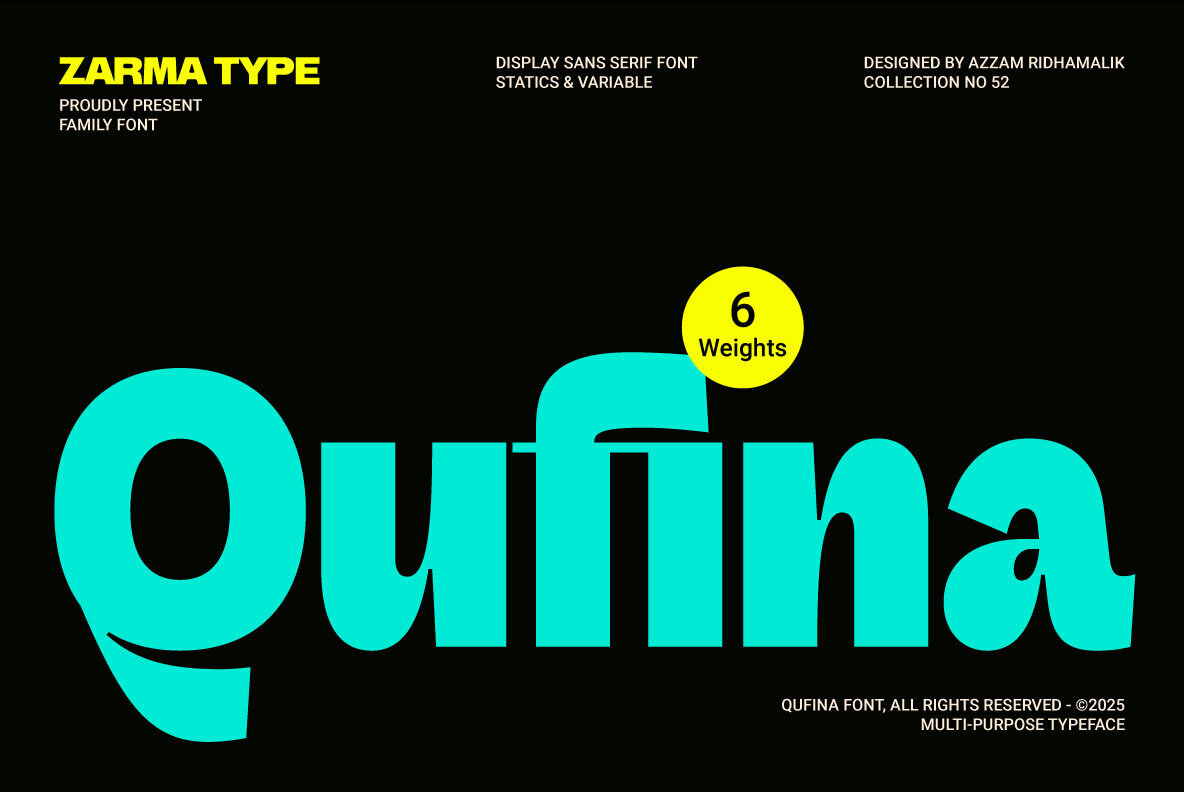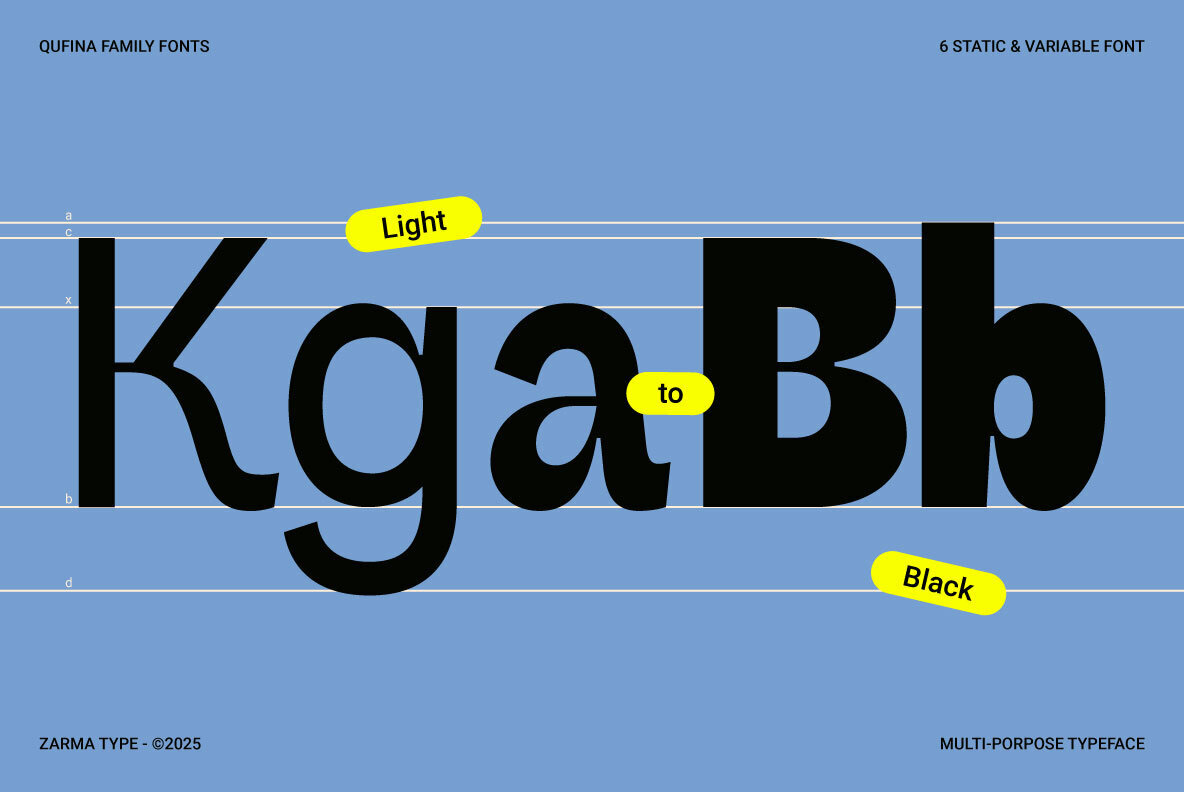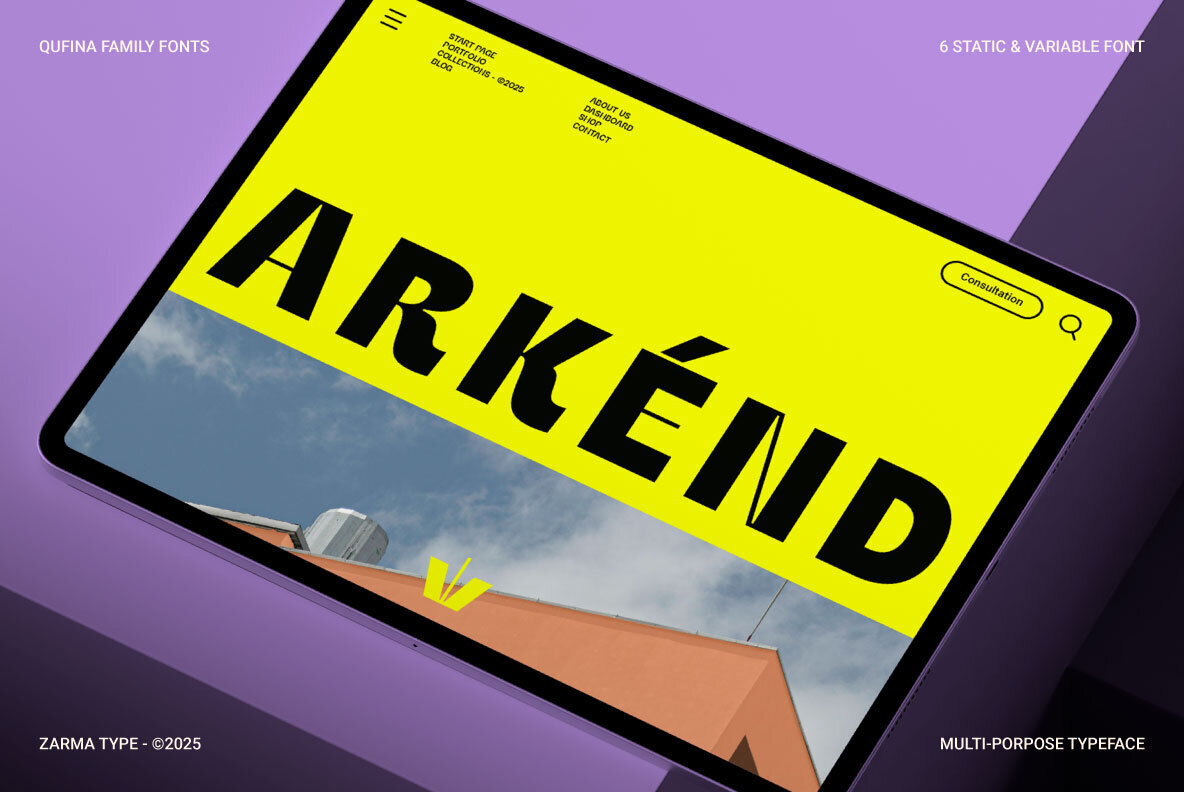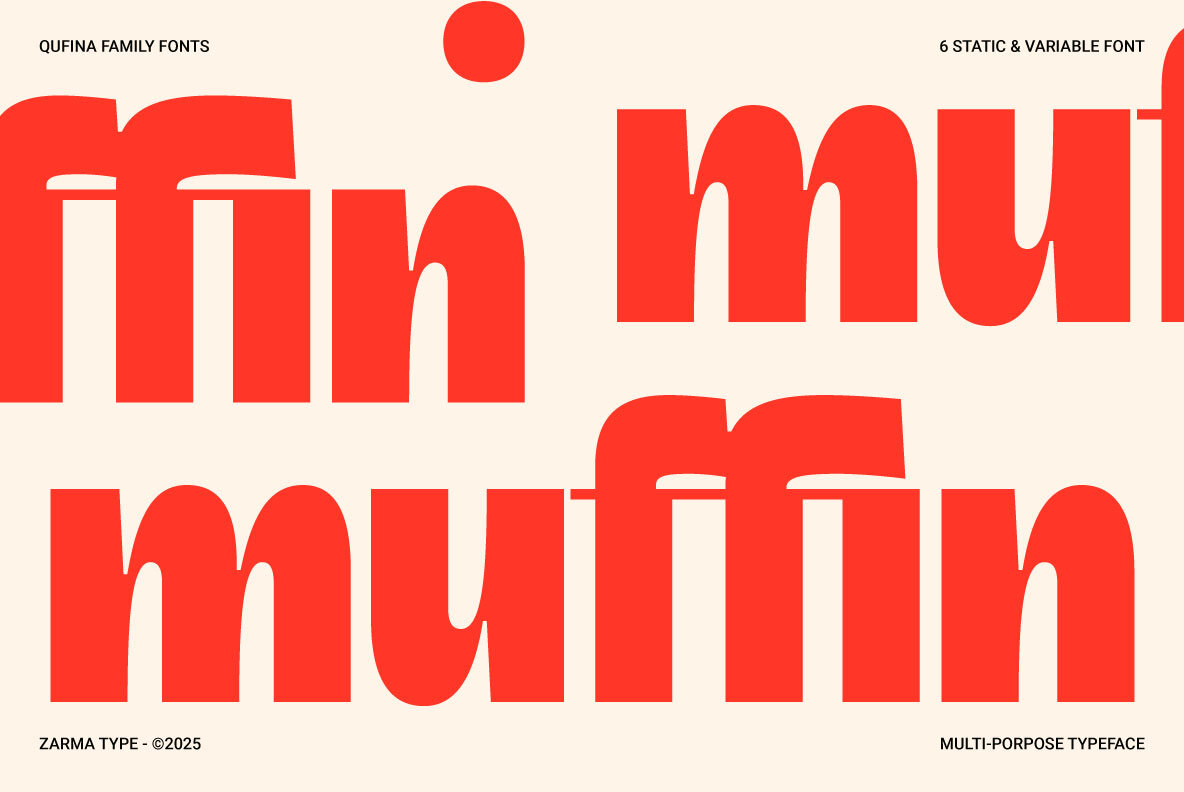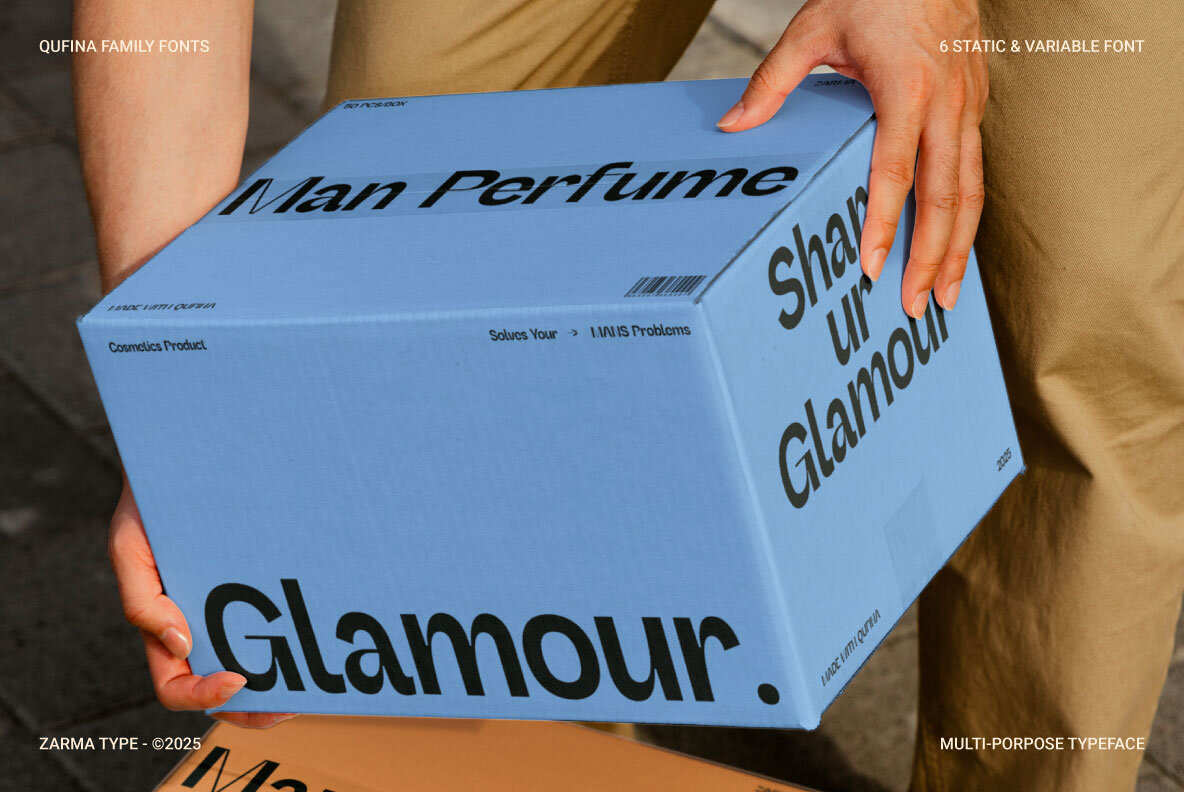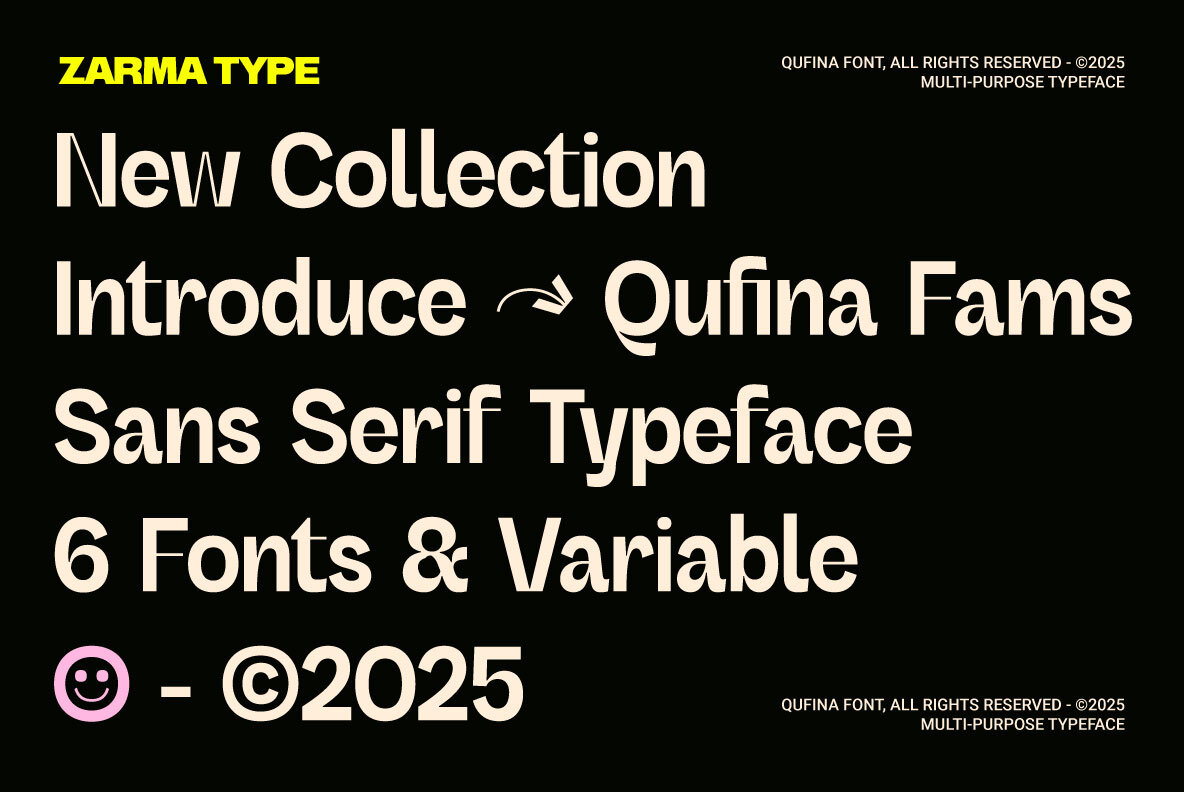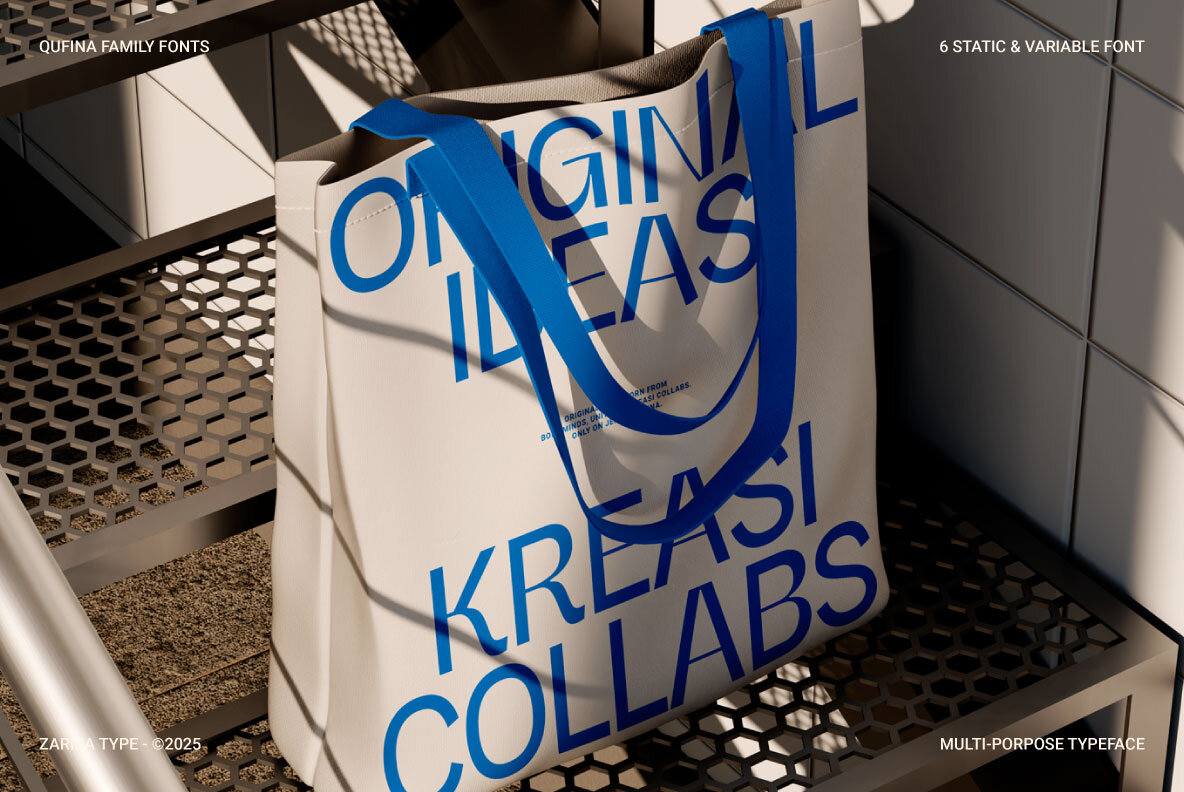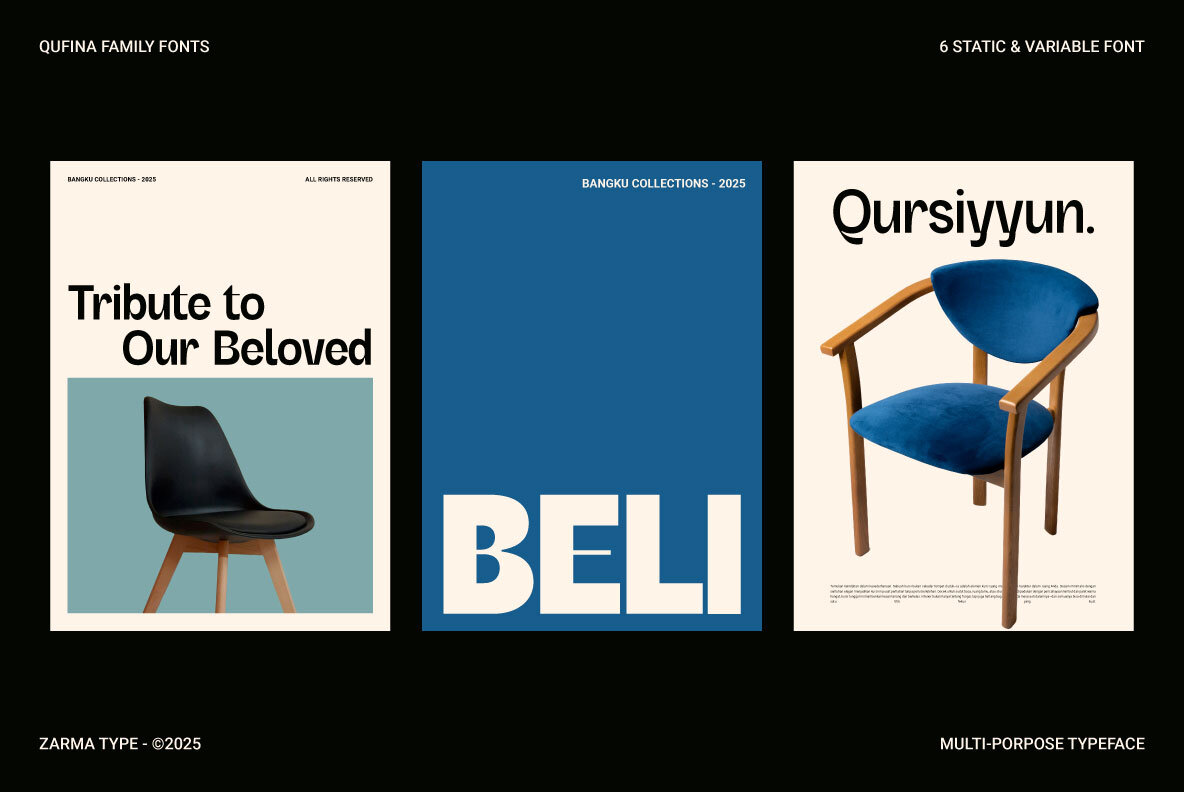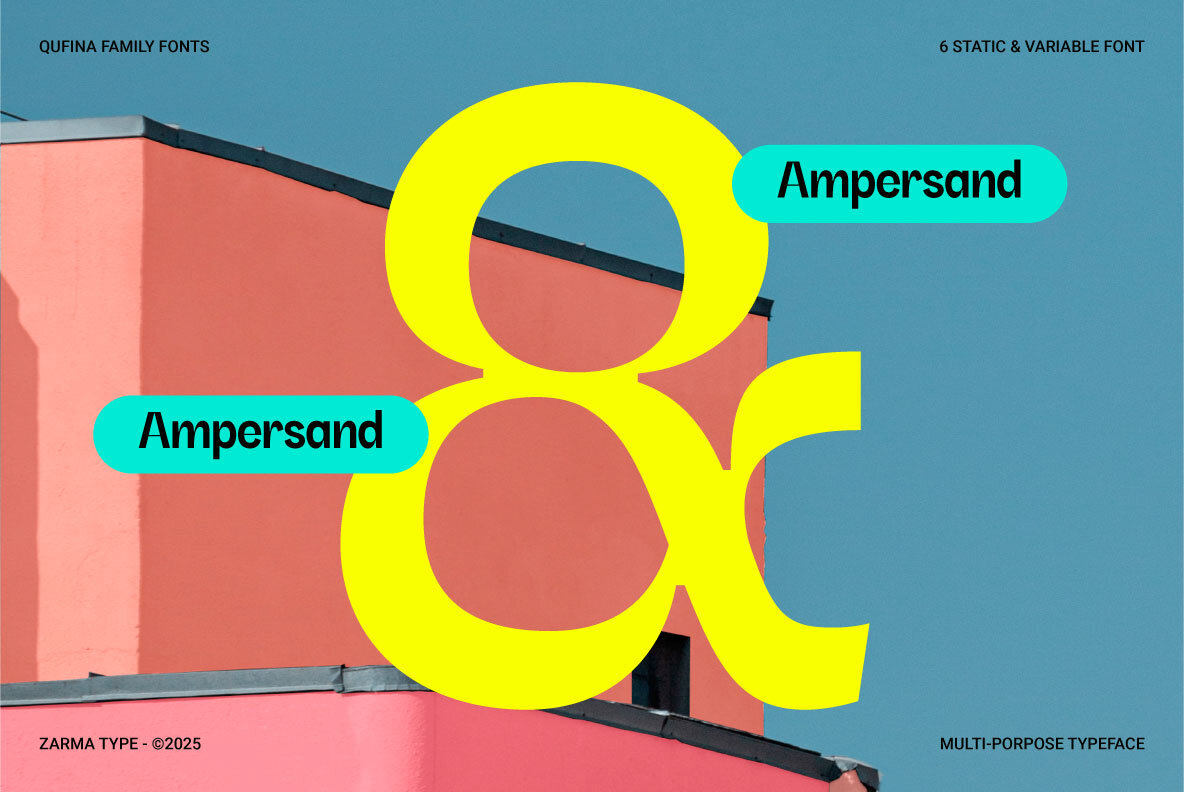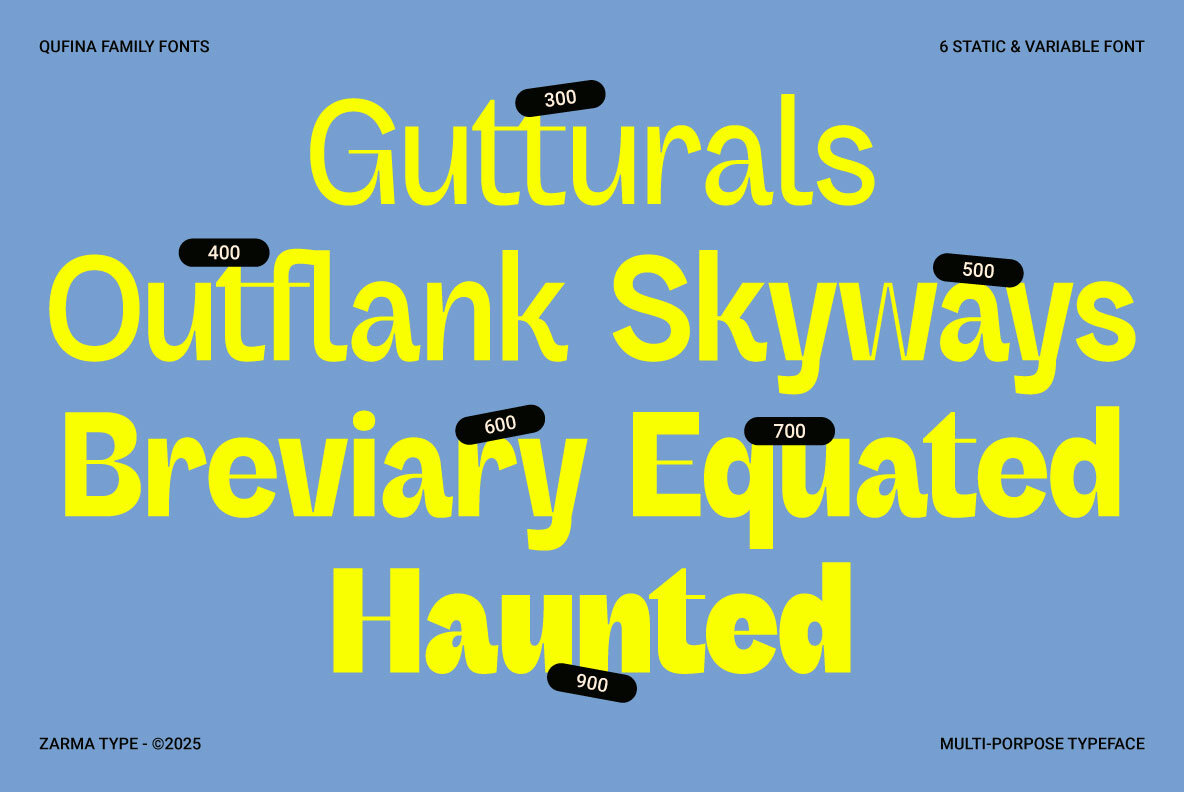
Qufina Font
Qufina offers a compelling blend of style and practicality within a sans serif font family. Featuring six meticulously designed weights and complex variable fonts, Qufina enhances design projects with its fresh geometric curves and unique letterforms. This font maintains clarity and readability across various screen sizes and printing formats. Whether applied to branding, editorial work, or packaging, Qufina adapts seamlessly, offering flexibility and a bold design voice. With robust multilingual support, this font is perfectly tailored to modern creatives seeking a functional yet stylish touch for their assorted projects.Qufina: Modern Sans Serif with Distinctive Character